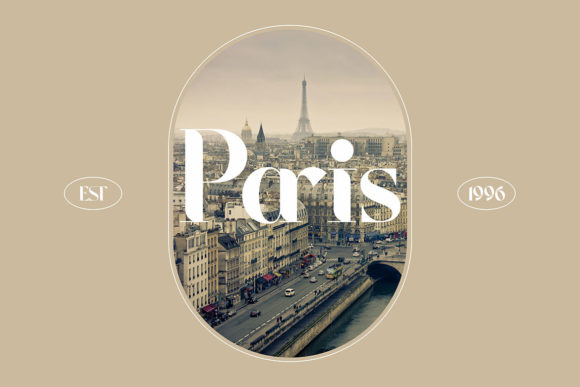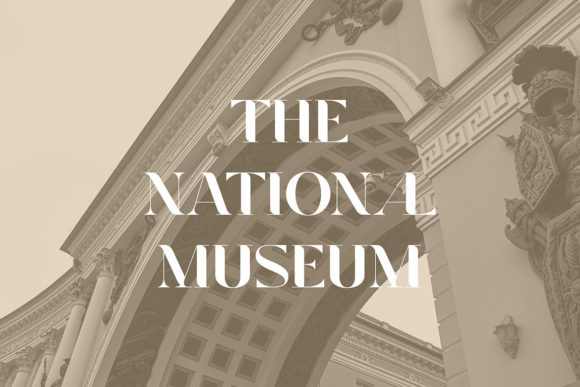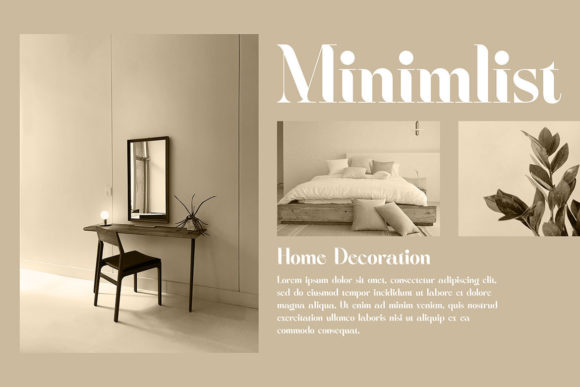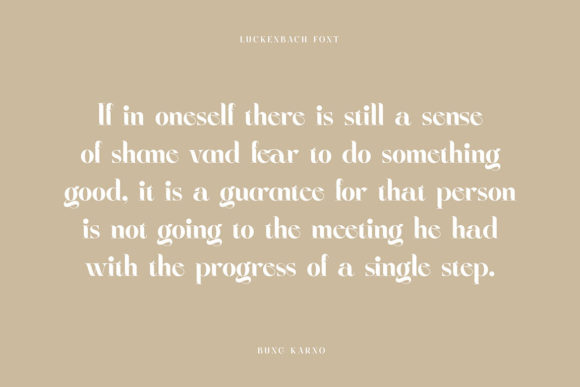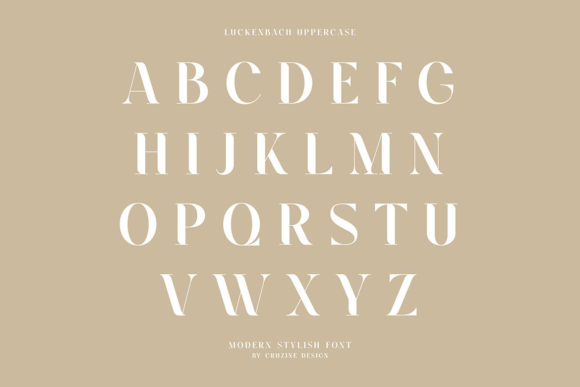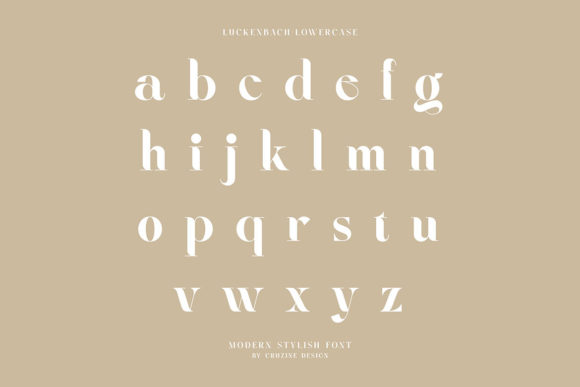
Introduction to Luckenbach Font
Luckenbach is a trendy and vintage styled serif font.
It works great on a variety of designs requiring a unique and cool touch This font is PUA encoded which means you can access all glyphs and swashes with ease.
Key Features of Luckenbach Font